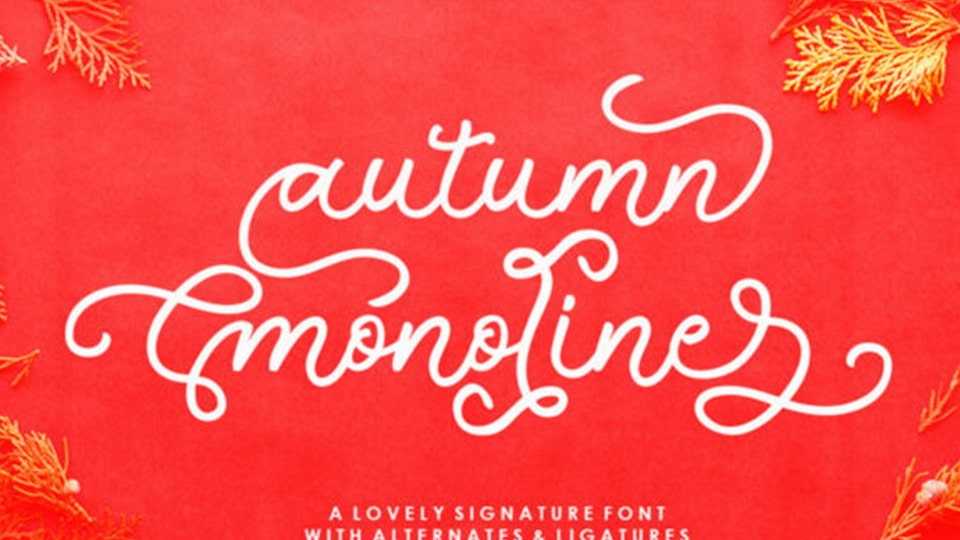
Download Autumn Monoline font, a whimsical handwritten typeface with a nostalgic touch. It looks breathtaking on a wide range of projects, from logos, to greeting cards, branding, quotes, prints, invitations and so much more!